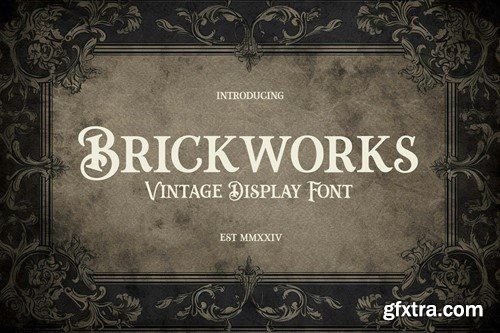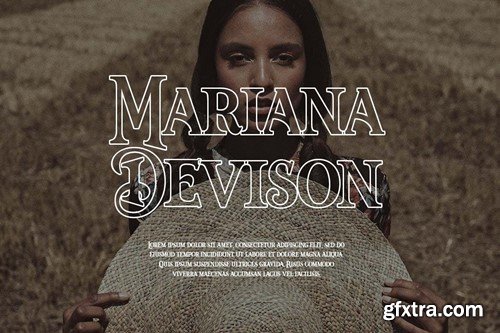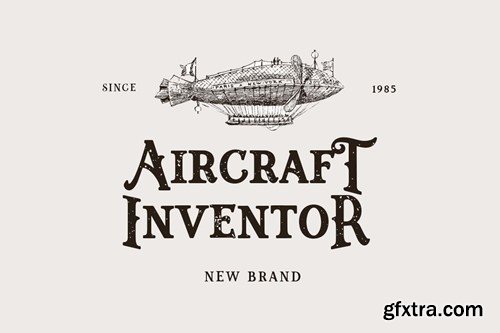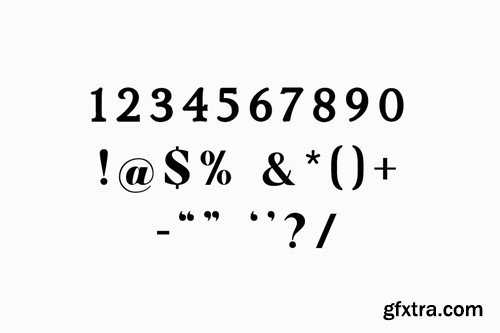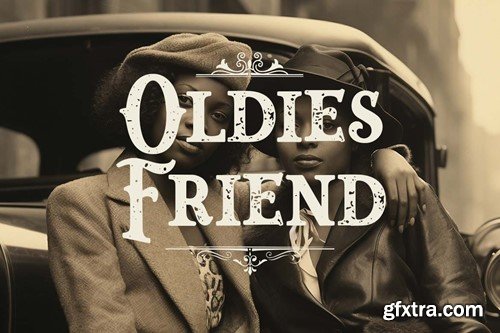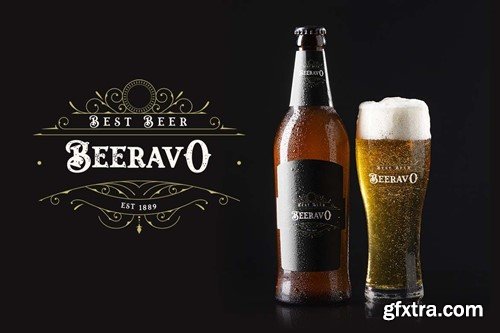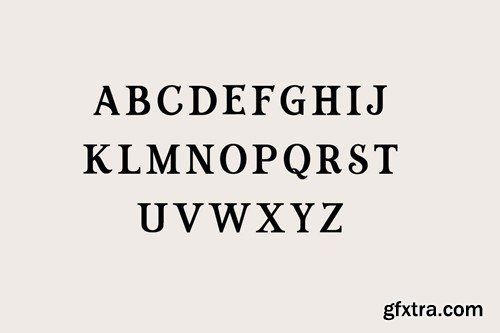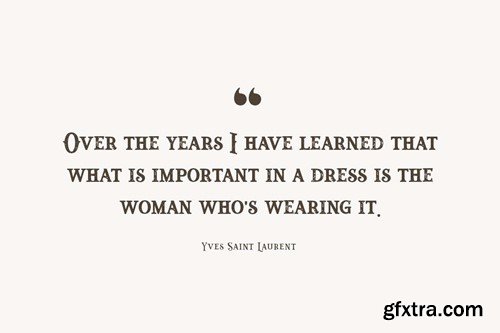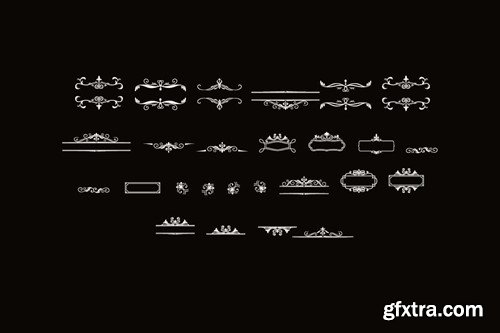
布里克 Works 原复古衬线字体 DRBBR9U
Brickworks Vintage Display Serif Font DRBBR9U
Brickworks Vintage Display Serif Font
Introducing our new product the name is Romanize Classic Display Serif Font. Classic Serif font that feels beautiful classy, elegant, and modern. This font is ideally suited for a wide variety of projects, such as signature, stationery, logo, wedding, typography quotes, magazine or book covers, website headers, clothing, branding, packaging design, and more. Also, fashion-related branding or editorial design displays both masculine and feminine qualities.